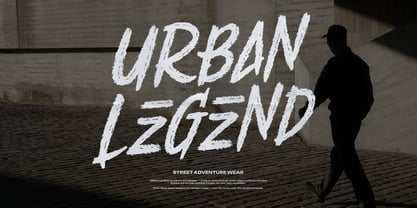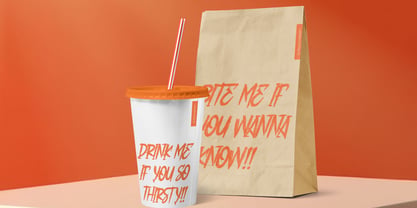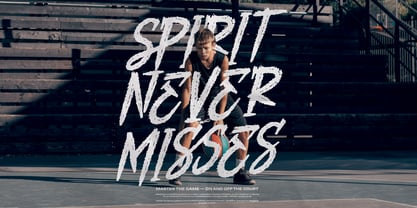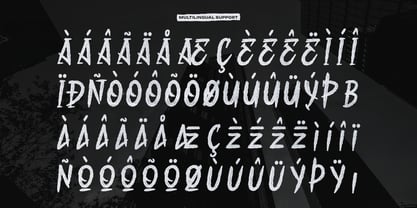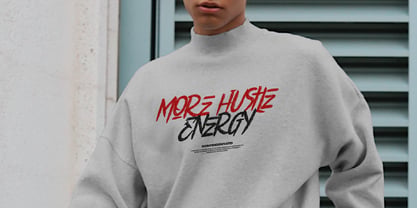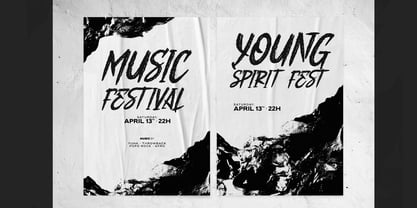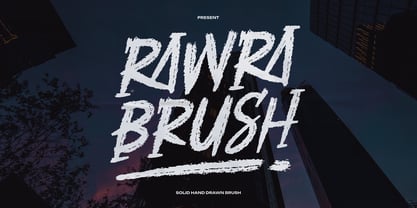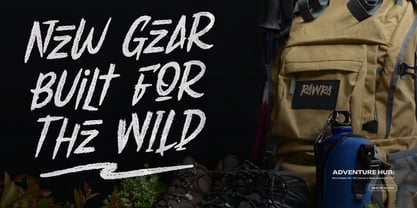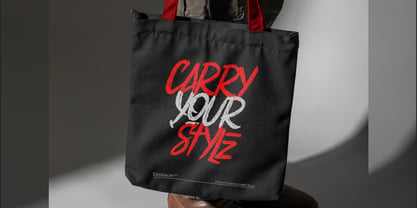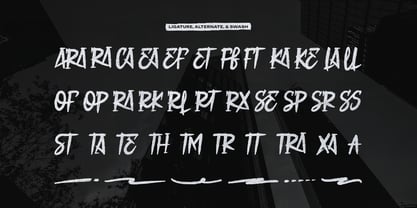
Rawra Brush
Rawra Brush | Solid Hand Drawn Brush, from Gracetypestudio, suitable for any projects such as: logos, branding projects, homeware designs, product packaging, mugs, quotes, posters, shopping bags, t-shirts, book covers, name card, invitation cards, greeting cards, label, photography, watermark, special events, and all your other lovely projects that need a Solid Hand Drawn Brush taste.
• Regular and Italic
• Alternate and Ligature
• Fonts include multilingual support